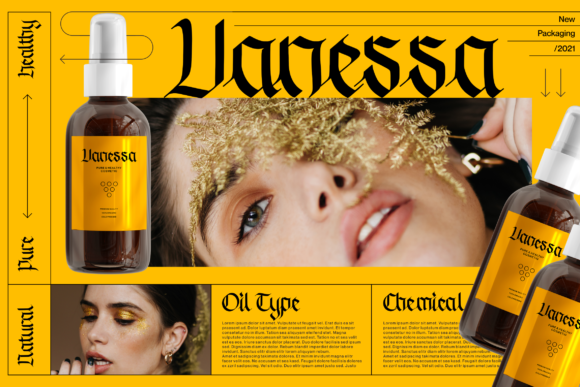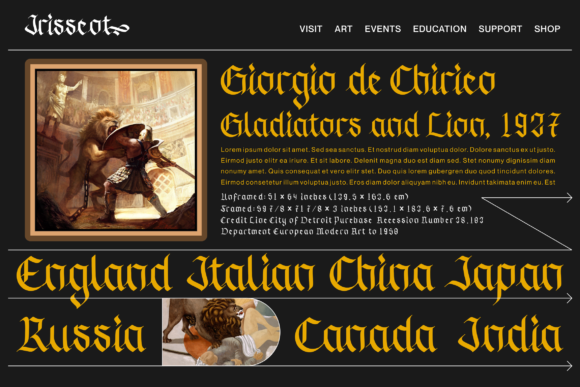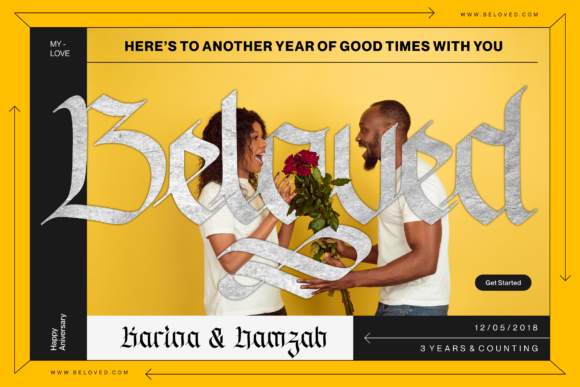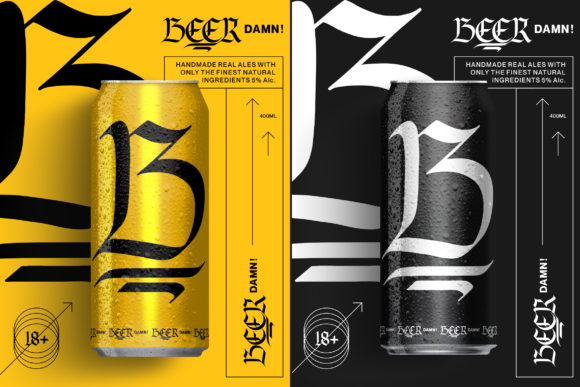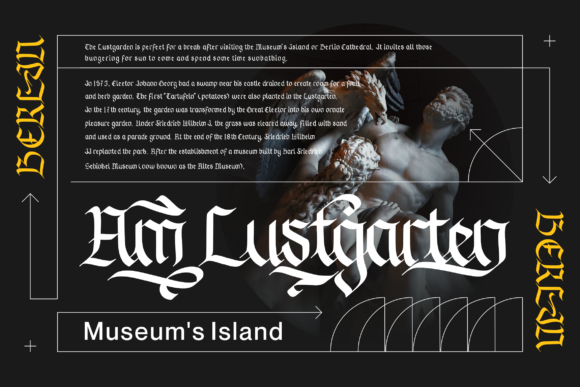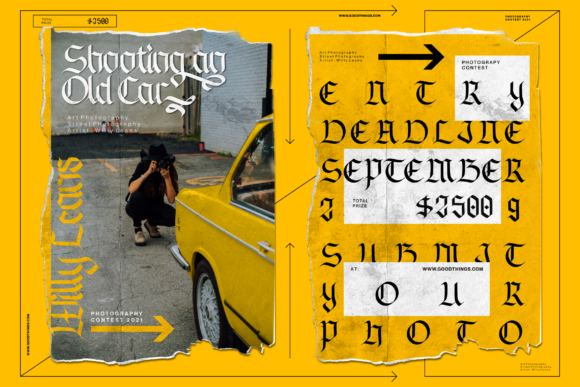
Introduction to Ganghoods Font
Ganghoods is a cool, assertive and distinct blackletter font.
Expertly designed to make your creation look out of this world, this font will look gorgeous on a variety of ideas .